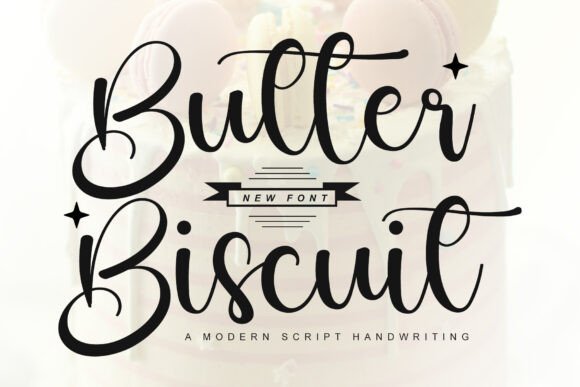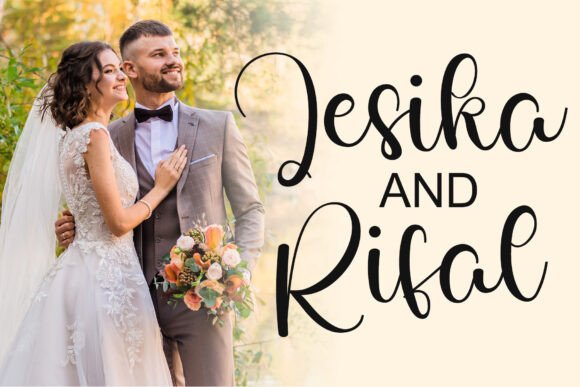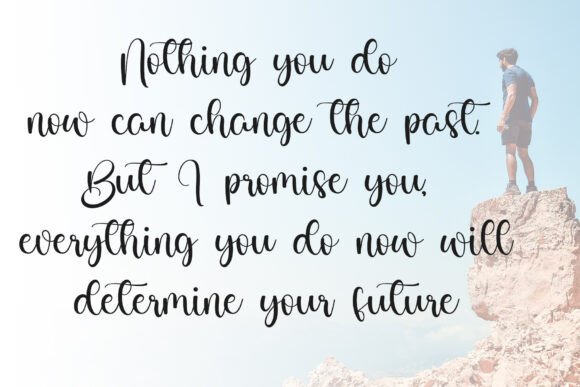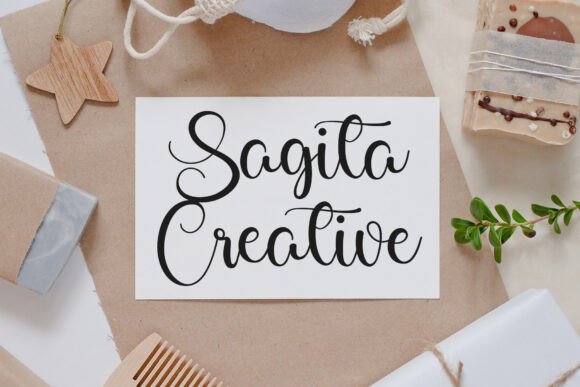
Butter Biscuit Font: Elegant Script for Wedding Invitations & Branding
About the Butter Biscuit Font
Make a bold statement with Butter Biscuit Font, a powerful and memorable font. Butter Biscuit – A Sweet & Elegant Script Font
Meet Butter Biscuit – a whimsically charming handwritten script font that blends playfulness with refined elegance. Designed with smooth, flowing strokes and a touch of warmth, this Elegant Script Font is perfect for branding, invitations, logos, and any design craving a cozy yet sophisticated vibe.
Whether you’re designing a dessert menu, a heartfelt greeting card, or a chic logo, Butter Biscuit adds a dash of sweetness and elegance to every project. Let your creativity rise with this irresistible script handwriting font!
Butter Biscuit Font Usage Examples
Butter Biscuit Font Example